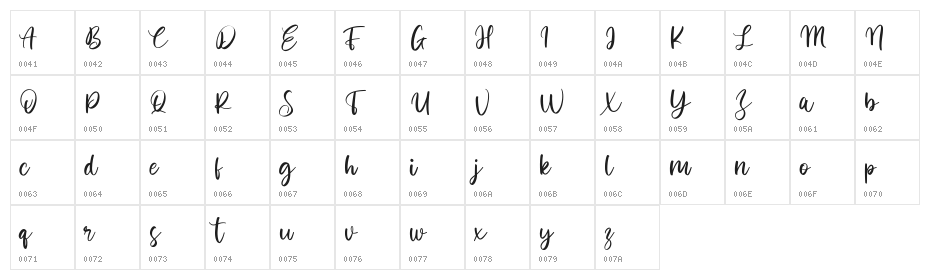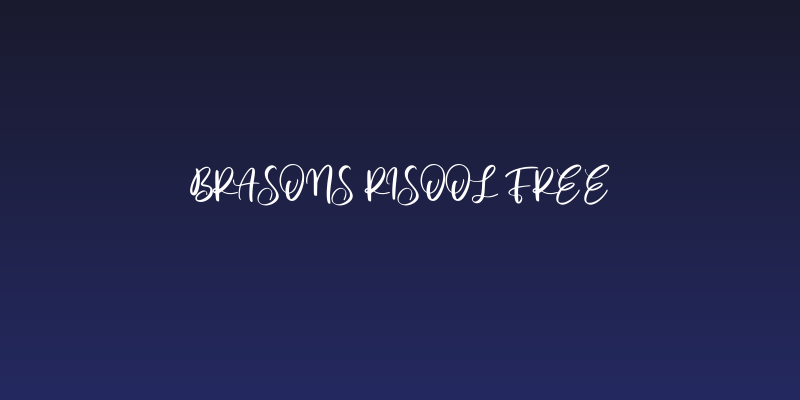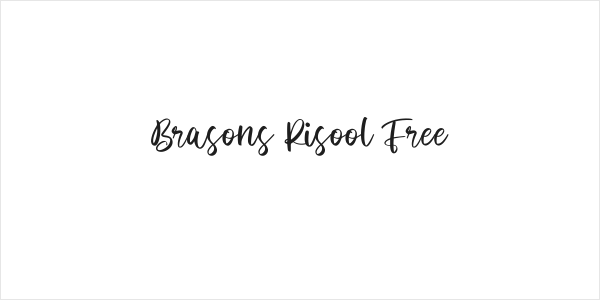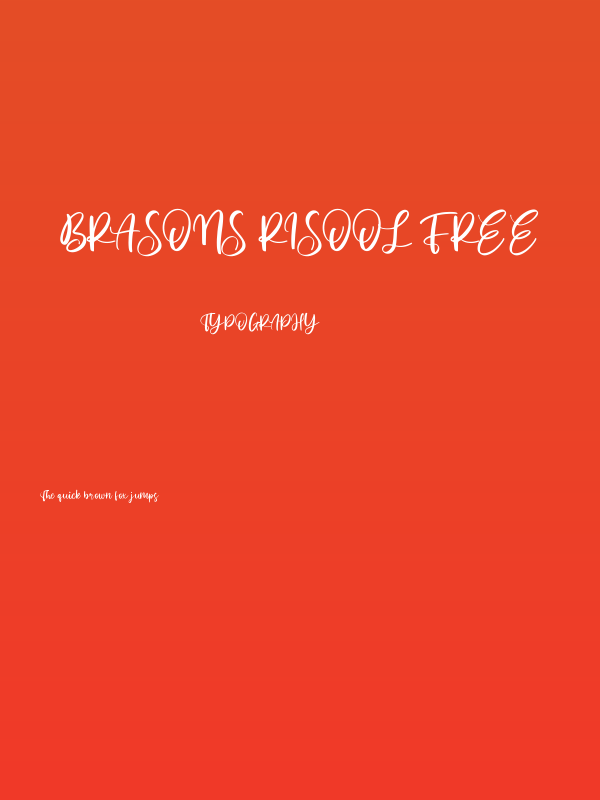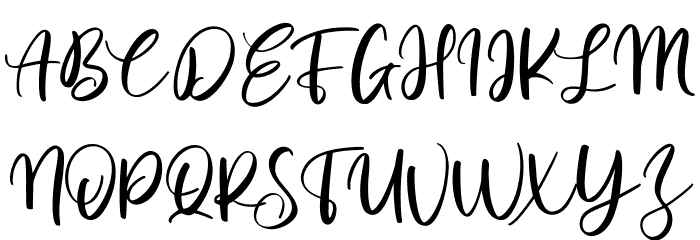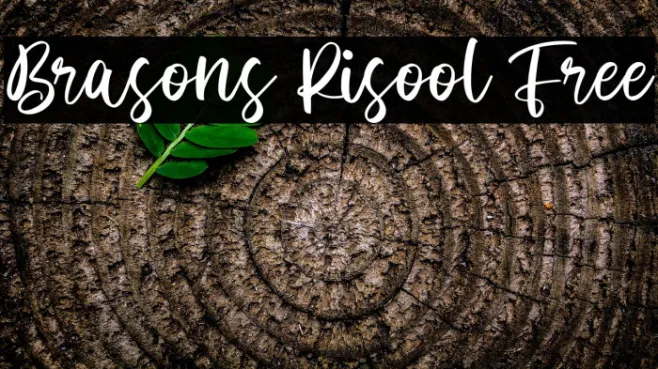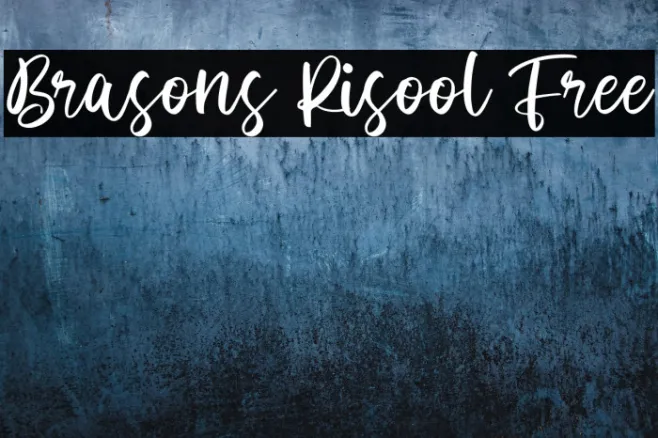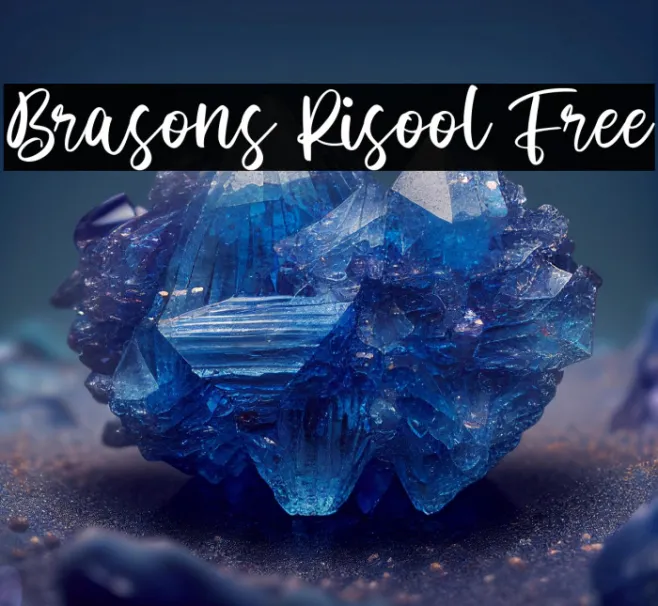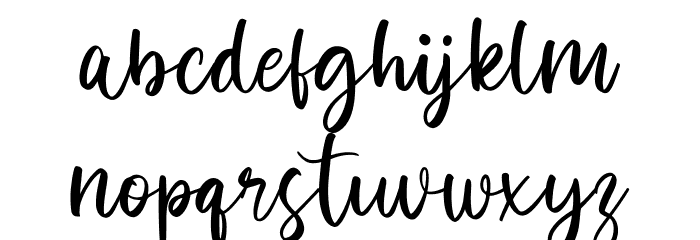
Brasons Risool Free Font
Brasons Risool Free Description
This font features a flowing, cursive style with elegant loops and swirls, giving it a handwritten appearance. The characters are connected, creating a seamless and fluid look. The uppercase letters are bold and prominent, while the lowercase letters maintain a consistent flow with slightly varying heights. The font exudes a sense of sophistication and creativity, making it ideal for projects that require a personal touch. Its decorative nature is balanced by its readability, ensuring it stands out without compromising clarity.